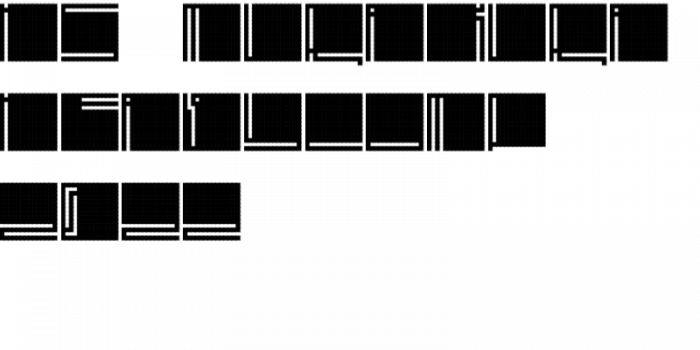
Fascinating entry!
Intriguing, but a bit of a nightmare to decipher!
I like how X is the only one that really pops out (and maybe Q)
i thought this was just a collection of symbols